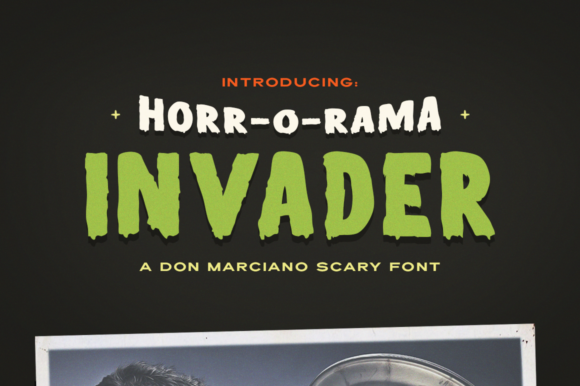
Welcome to the dark and delectable world of Invader Font, a display font that takes you on a spine-tingling journey with a touch of sweetness. Inspired by vintage horror film posters, Invader is not your ordinary font; it's a gateway to an era of spine-chilling tales.
With its jagged, otherworldly glyphs, Invader is sure to send shivers down your spine while simultaneously satisfying your sweet tooth. Its candy hearts aesthetic evokes a sense of nostalgia, like stumbling upon a forgotten treasure trove of retro horror gems.
This font is so much more than just a collection of letters; it's a portal to a thrilling realm of imagination. And it's perfect for captivating audiences and leaving a lasting impression on your designs.
Let Invader be the star of your creative projects and transport your readers to a world where the eerie and the endearing coexist. Its unique blend of fear and delight will have them eagerly anticipating every twist and turn of your story.
Unsheathe Invader's potential and let your designs become a haunting yet heartwarming affair. Its versatility knows no bounds, whether it's for posters, logos, branding, or any project that demands a spine-tingling touch.